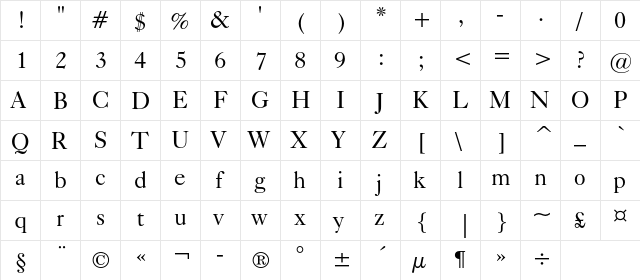
CaslonC 540 BT Regular
Design Context for CaslonC 540 BT Typeface
CaslonC 540 BT offers clean, dependable letterforms without strong stylistic allegiance, making it a practical choice for designers who need flexibility.
Pro Tip: Pair CaslonC 540 BT with a font of contrasting weight or personality to build a more expressive typographic hierarchy.